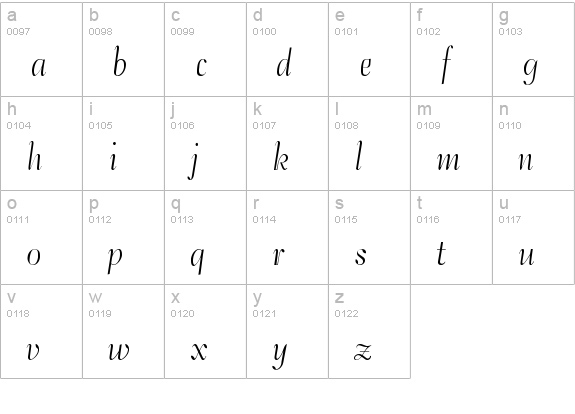
Tango Normal Font Details
Tango Normal is the standard, neutral variant in the Tango typeface family \xE2\x80\x94 well suited to general body text, paragraphs, and standard typographic work.
Introducing Tango Normal font, a versatile and contemporary typeface that effortlessly blends elegance with a touch of modernity. Designed for optimal legibility and readability, Tango Normal is the perfect choice for a wide range of design projects, from branding and packaging to editorial layouts and website designs. With its clean lines and balanced proportions, Tango Normal exudes a timeless appeal that adds sophistication to any design. The carefully crafted letterforms are characterized by their harmonious curves and carefully balanced strokes, resulting in a balanced and pleasing aesthetic that captivates the eye. One of the most remarkable features of Tango Normal is its versatility. Whether used in headlines, subheadings, or body text, this font adapts seamlessly to any context and effortlessly enhances the overall visual impact of your design. Its clarity and legibility ensure that your message is conveyed with utmost precision and professionalism. But what makes Tango Normal truly special is the fact that it is freely available for download at FontsMarket.com. Yes, you read that right - this incredible font can be yours at no cost. FontsMarket.com, a leading platform for font enthusiasts, offers this font as part of their extensive library of high-quality fonts. So, why wait? Elevate your designs to new heights with Tango Normal. Download it today and unlock the full potential of this remarkable font, and let your creativity soar.